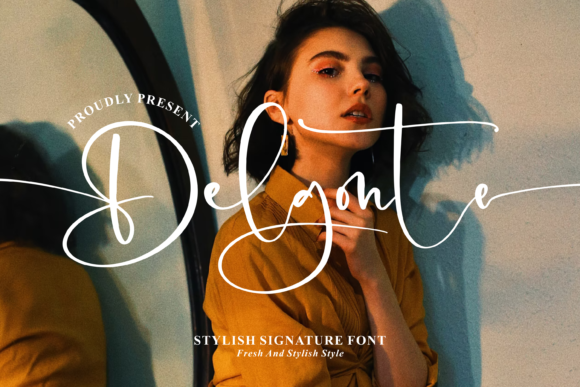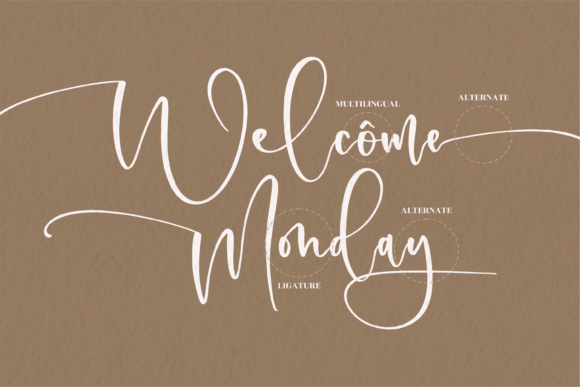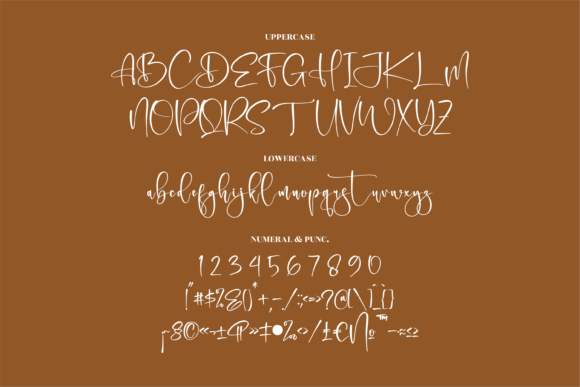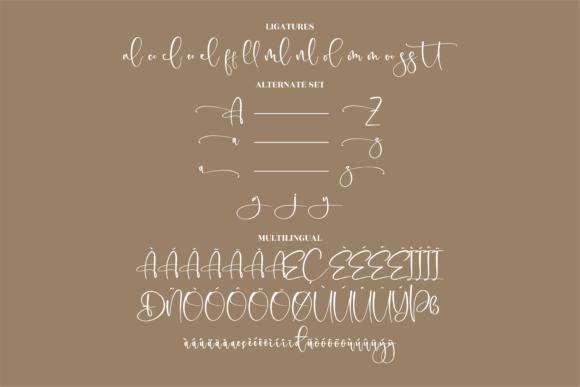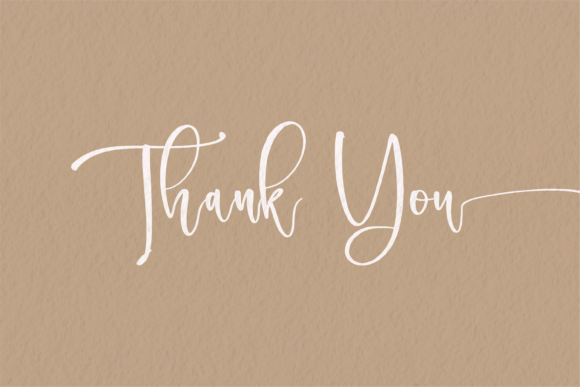
Delgonte Font
About Delgonte Font
Delgonte is a magical script font carefully created with a touch of elegance. This font is PUA encoded which means you can access all of the glyphs and swashes with ease!